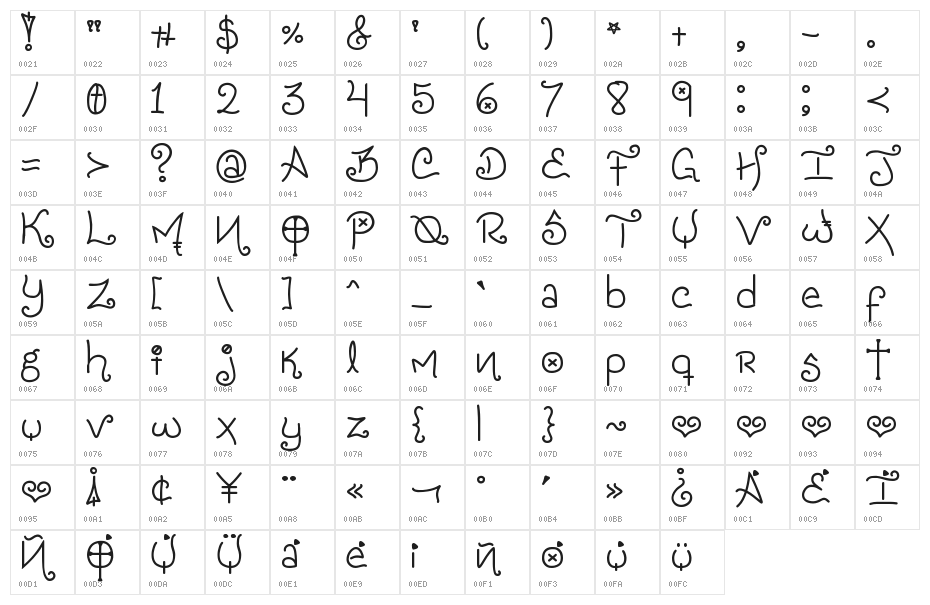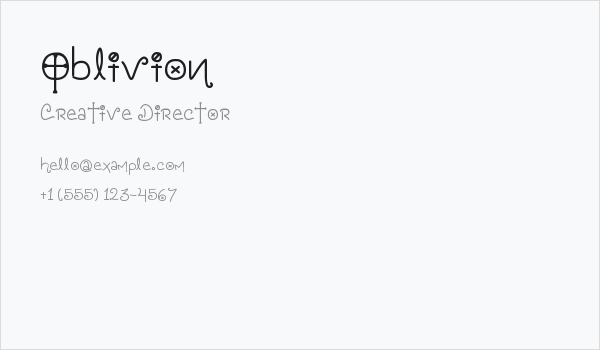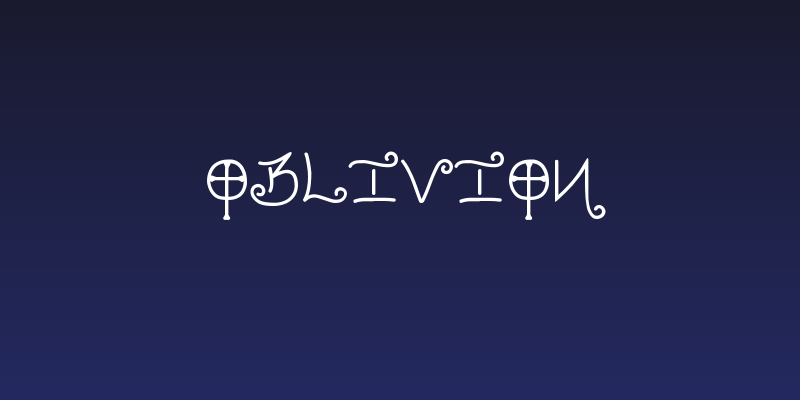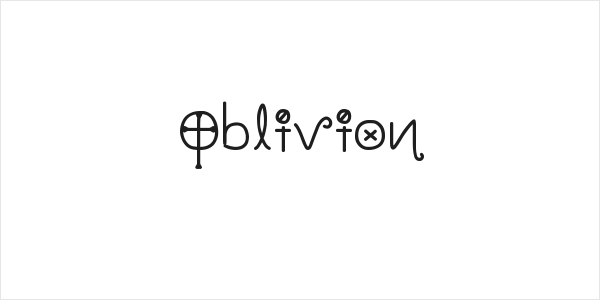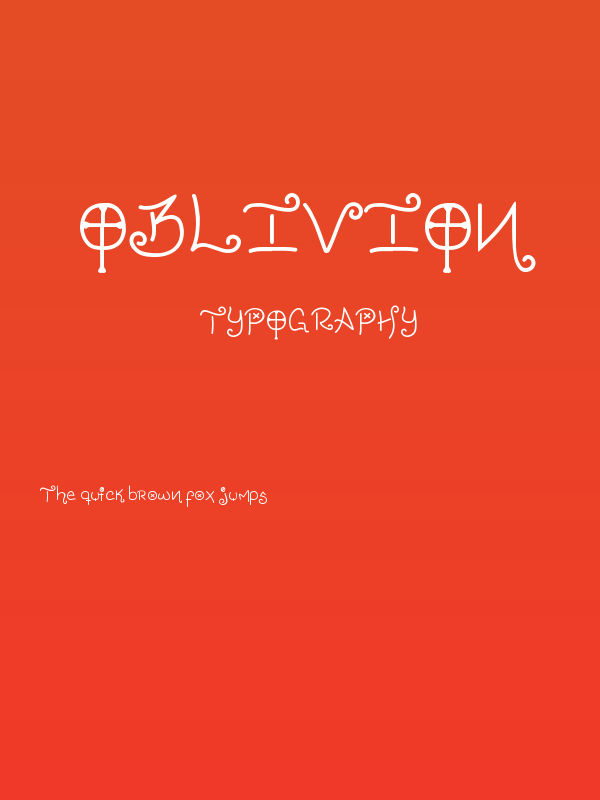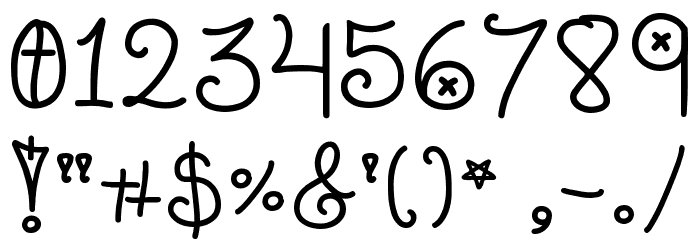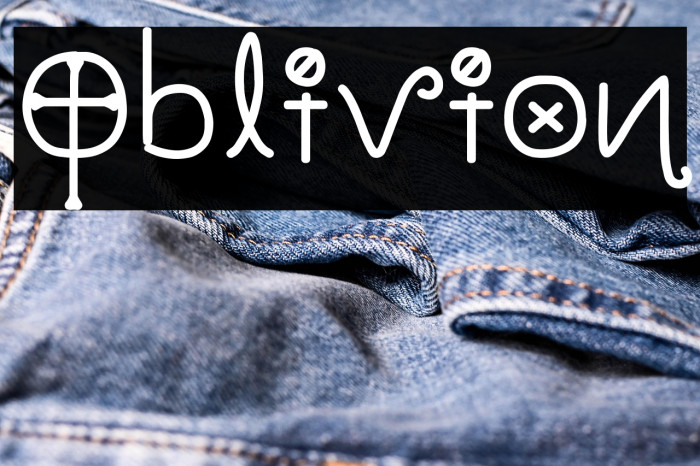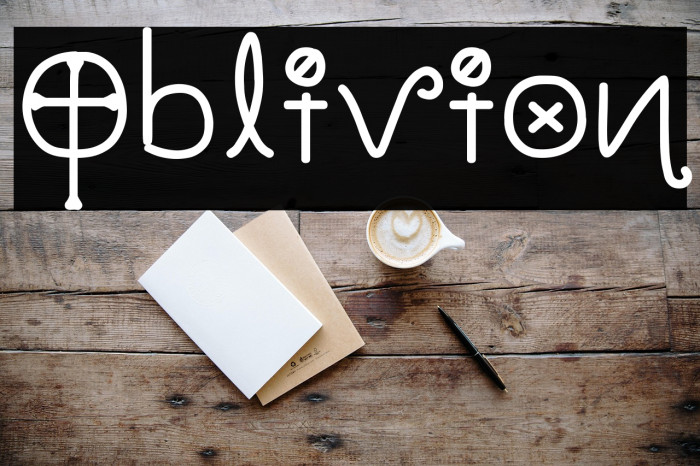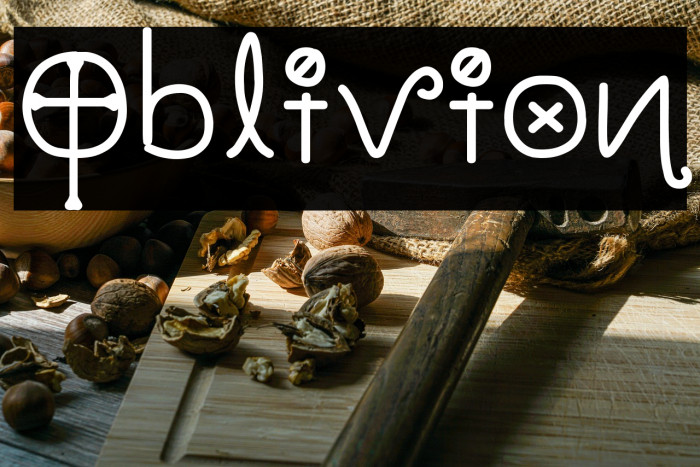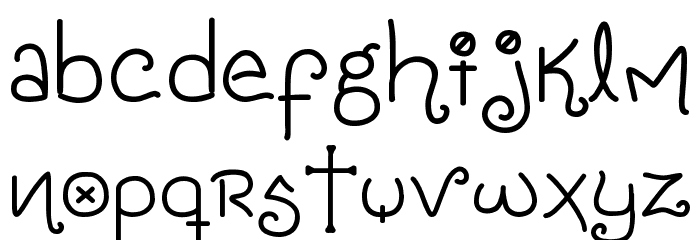
Oblivion Font
Oblivion Description
This font features a whimsical and decorative style, characterized by its playful curls and loops. The uppercase letters are adorned with intricate swirls, giving them a unique and artistic flair. The lowercase letters maintain a consistent style, with some characters like 'g' and 'y' having distinctive tails. Numbers are bold and maintain the decorative theme, with some digits incorporating circular elements. Special characters are equally ornate, adding to the font's overall charm. This font is ideal for projects that require a touch of creativity and elegance.
| Use Case | Headlines, Logos, Artistic projects |
| Proposed Projects | Ideal for invitations, greeting cards, artistic posters, and branding that requires a creative touch. |